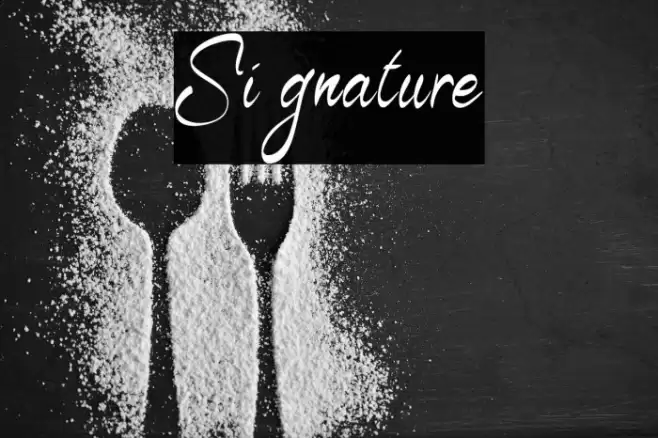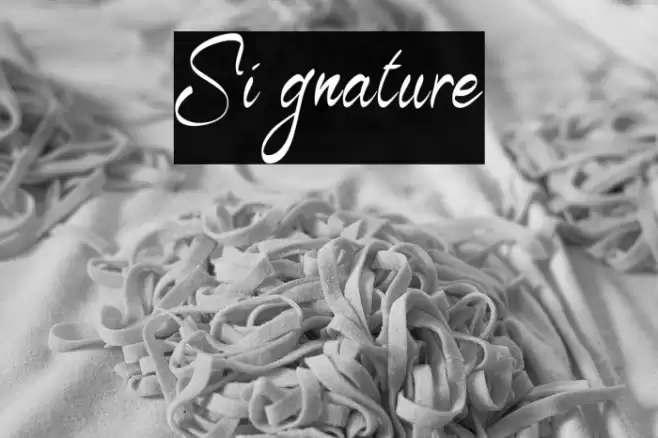
Signature Font
Signature Description
This elegant script font features a flowing, cursive style that mimics the fluidity of a handwritten signature. The characters are connected with smooth, sweeping strokes, giving it a sophisticated and personal touch. The uppercase letters are slightly more elaborate, with decorative flourishes that enhance their visual appeal. The lowercase letters maintain a consistent style, with gentle curves and loops that create a harmonious look. The numerals are distinct yet cohesive with the overall design, and the special characters blend seamlessly into the font's aesthetic. This font exudes a sense of elegance and refinement, making it ideal for projects that require a personal or luxurious feel.
A flowing, cursive script font with elegant, handwritten characteristics from Regular fonts.
- Proposed Projects: Ideal for wedding invitations, personal branding, luxury product packaging, and elegant stationery.
- Overall Style: Elegant, Personal, Luxurious
- Use Case: Logos, Invitations, Personal Branding